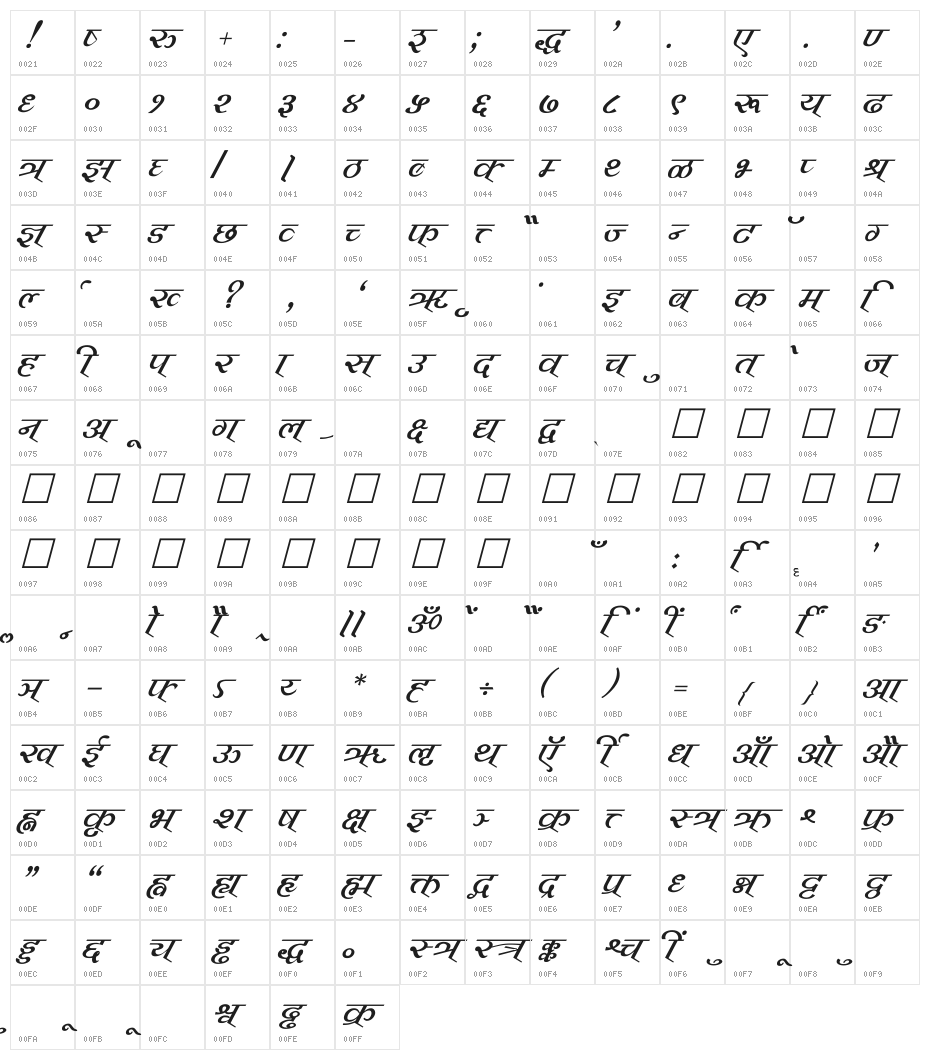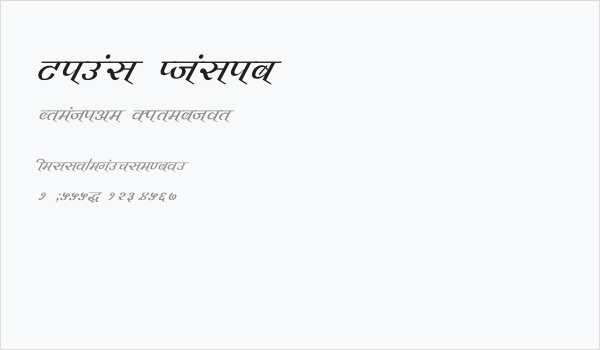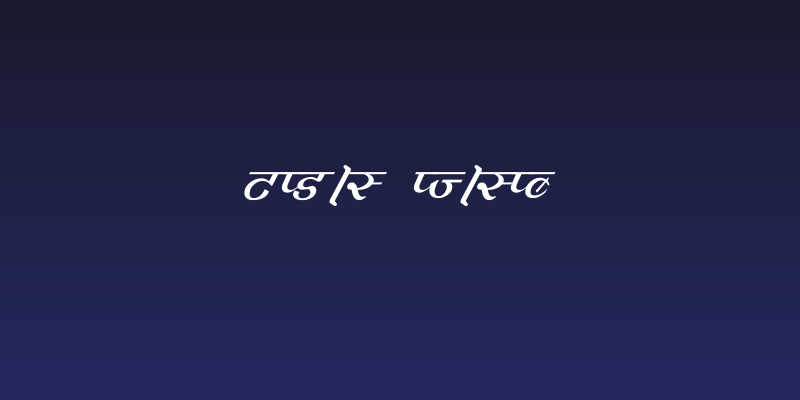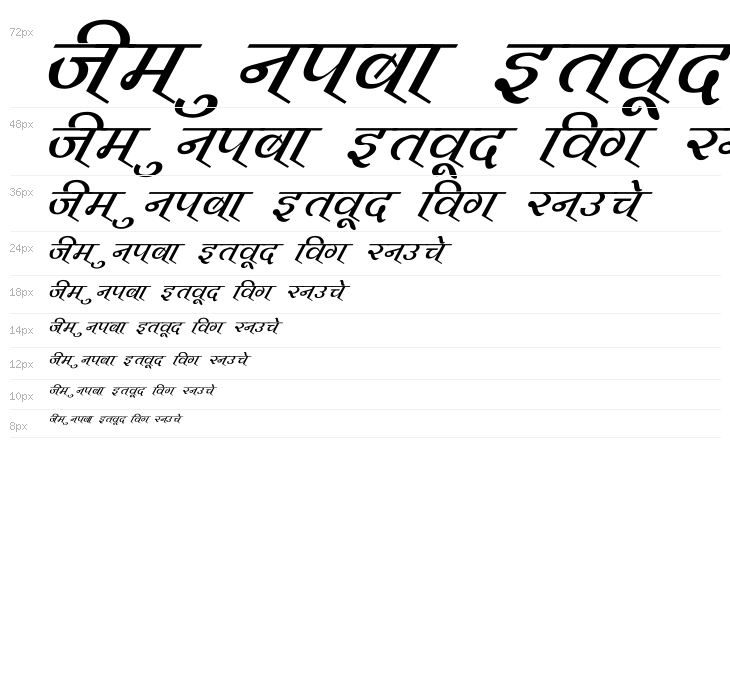
Vimal Italic Font
Vimal Italic Description
This font features a distinct italic style with a flowing and cursive appearance. The characters are elegantly slanted, giving a sense of motion and fluidity. The strokes are moderately thick, providing a balanced contrast that enhances readability while maintaining a stylish look. The font includes a comprehensive set of characters, including numerals and special symbols, all maintaining the same italicized form. The overall design is sophisticated, making it suitable for formal and decorative purposes.
Use CaseHeadlines, Invitations, Decorative text
Proposed ProjectsIdeal for wedding invitations, formal event programs, elegant branding, and decorative headings.